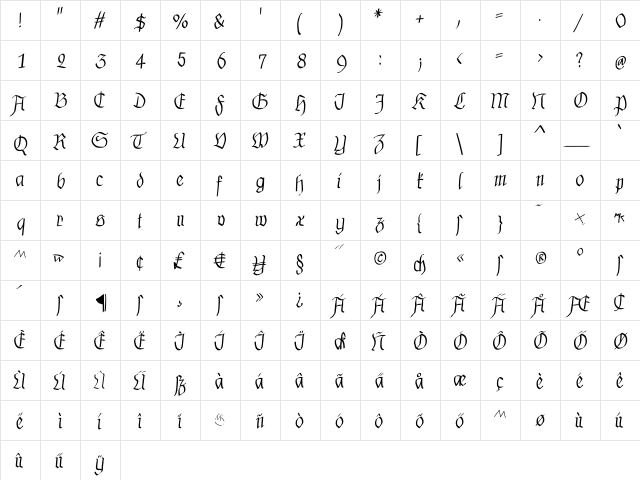
MKalligFrax Medium Italic
Design Context for MKalligFrax Typeface
MKalligFrax is a composed and adaptable typeface that performs quietly and consistently across a wide range of design contexts. Its italic angle brings a sense of urgency and motion to the letterforms.
Pro Tip: Try MKalligFrax for annotation and caption copy alongside an upright companion — the contrast in angle creates a dynamic but ordered typographic system.